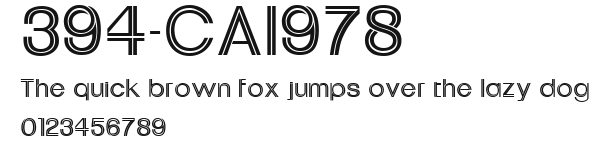
• Font Name: 394-CAI978
• Full Font Name: 394-CAI978
394-CAI978.ttf is a modern, elegant sans-serif font designed for ultimate readability and visual harmony. Perfect for branding, headlines, web design, and print materials.